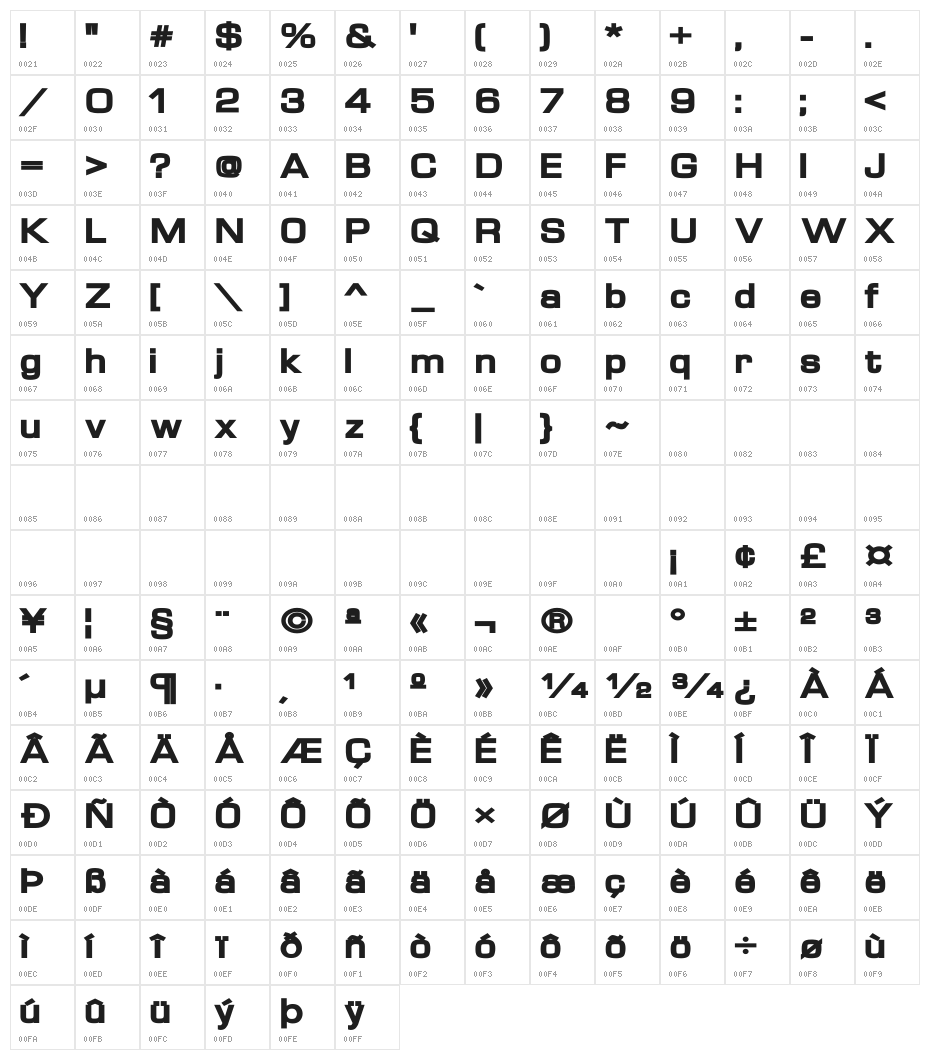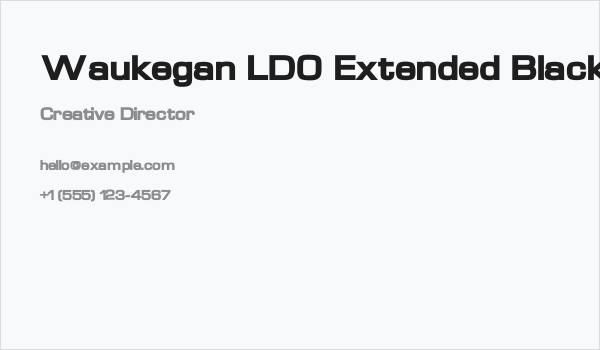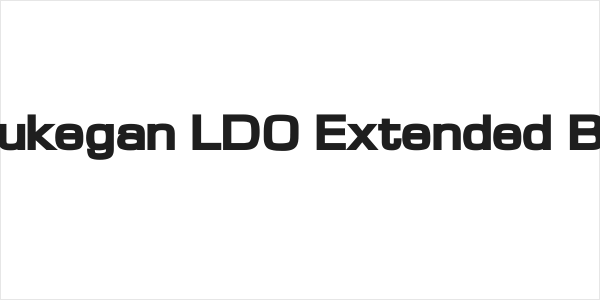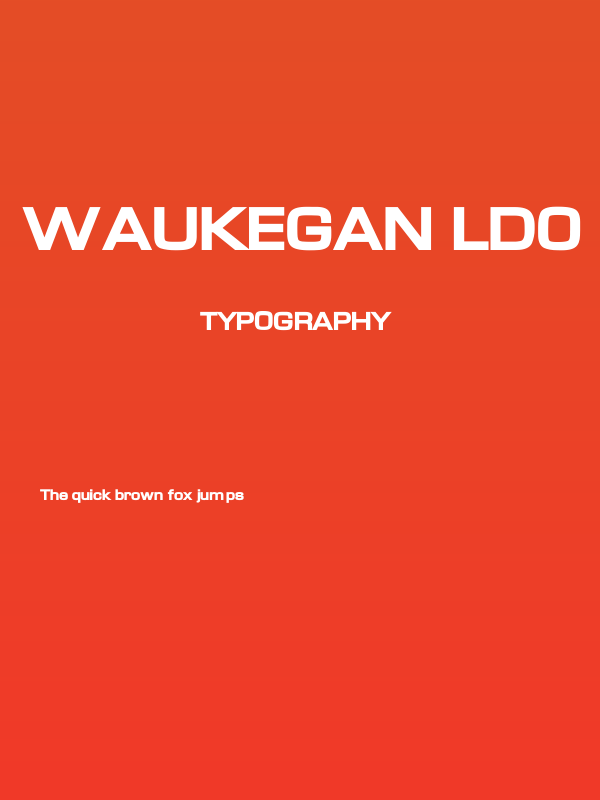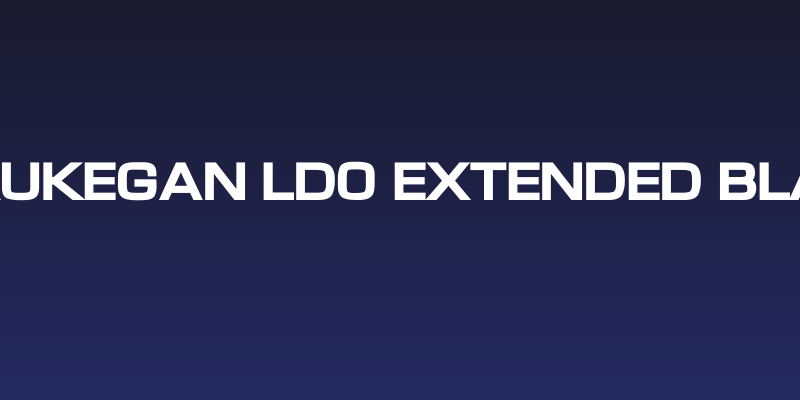
Waukegan LDO Extended Black Font
Waukegan LDO Extended Black Description
This font features a bold and extended style with strong geometric shapes and a modern aesthetic. The uppercase and lowercase letters are designed with a consistent thickness, providing a uniform appearance across the board. The numerals are equally bold, ensuring they stand out clearly. Special characters are included, maintaining the same robust design. The overall look is clean and impactful, making it suitable for attention-grabbing headlines and logos. Its extended width gives it a unique presence, ideal for projects that require a strong visual statement.
| Proposed Projects | Ideal for branding, headlines, posters, and any design needing a strong, modern impact. |